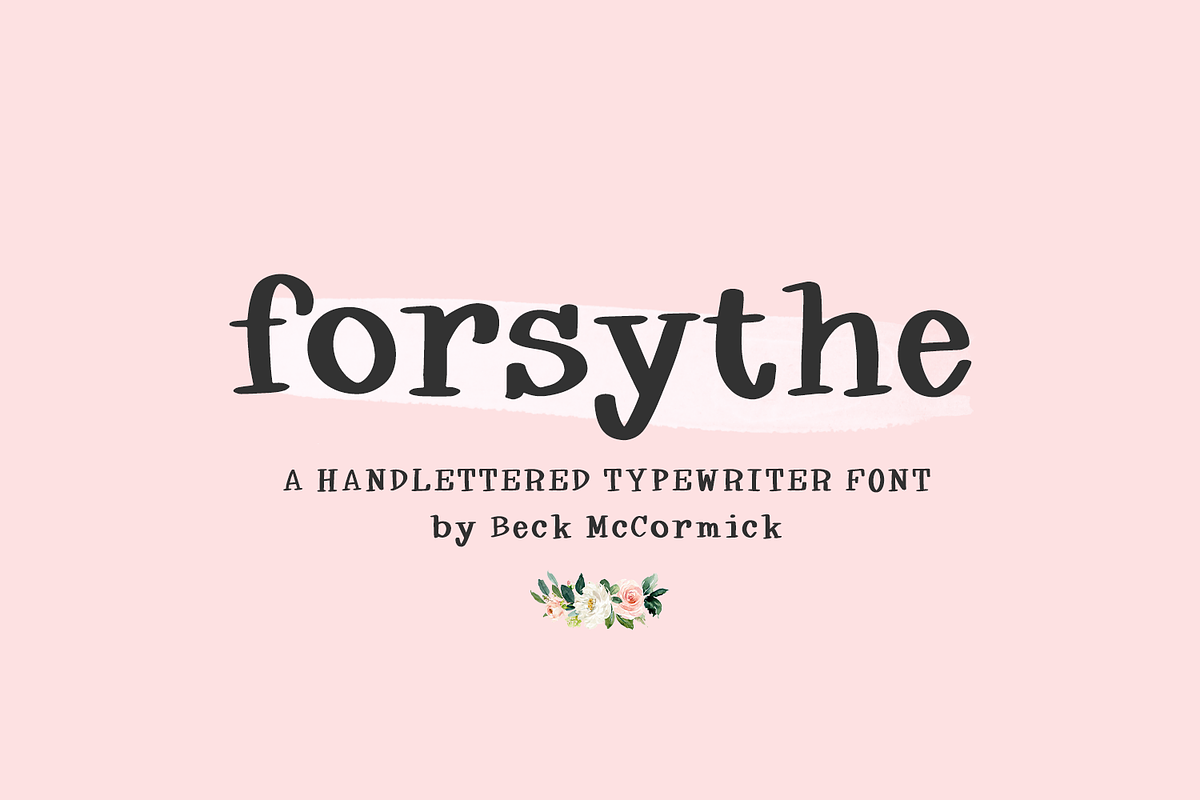
Forsythe Typewriter Serif Font Free Download is a unique typeface that combines the classic charm of typewriter-style fonts with the timeless elegance of serif lettering. Its vintage feel, mixed with modern readability, makes it perfect for editorial designs, branding, retro-inspired projects, and creative writing pieces that require personality and character.
The distinctive typewriter details and well-defined serifs give Forsythe a classic, nostalgic vibe, ideal for projects like logos, posters, packaging, and print media that need a touch of retro sophistication.